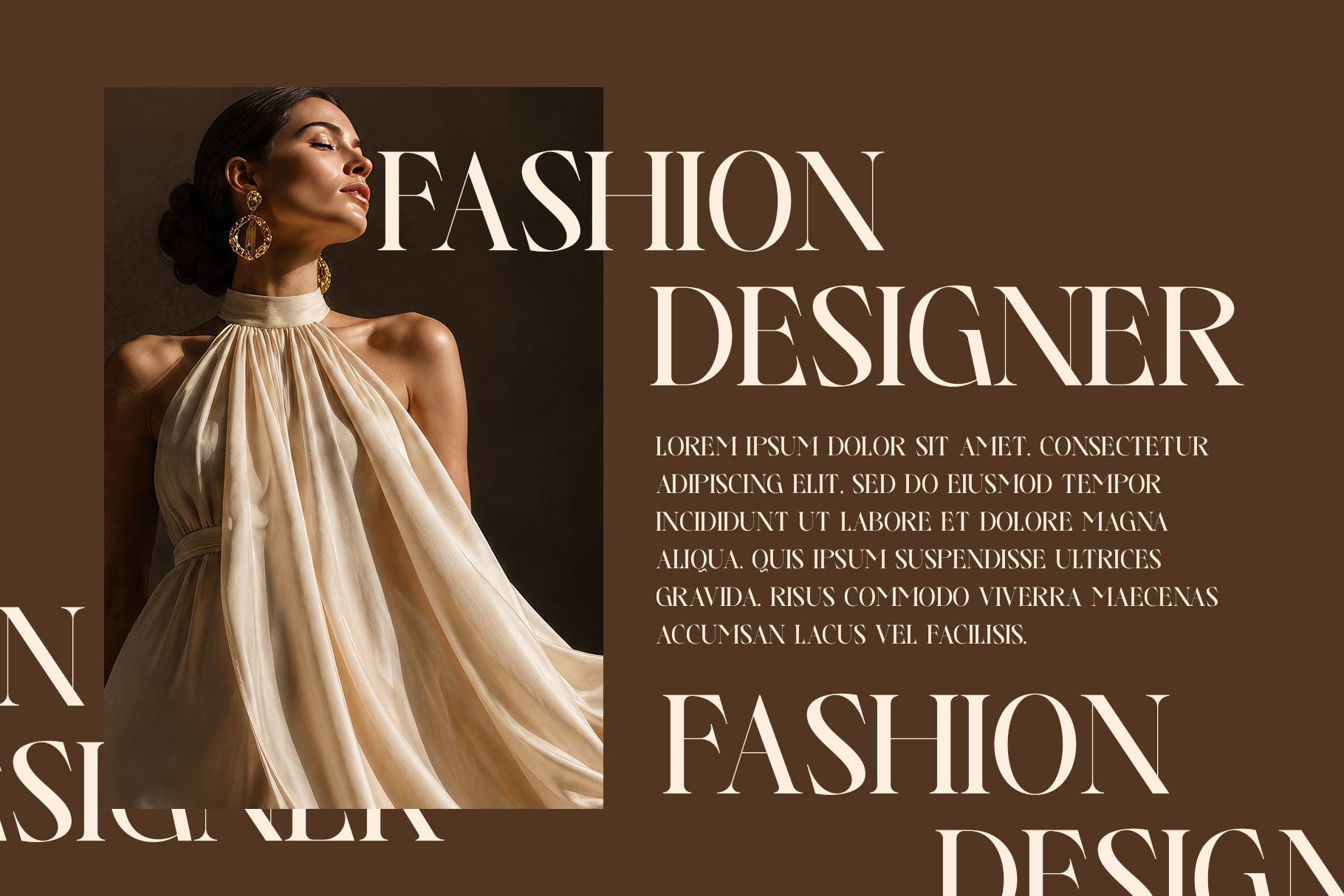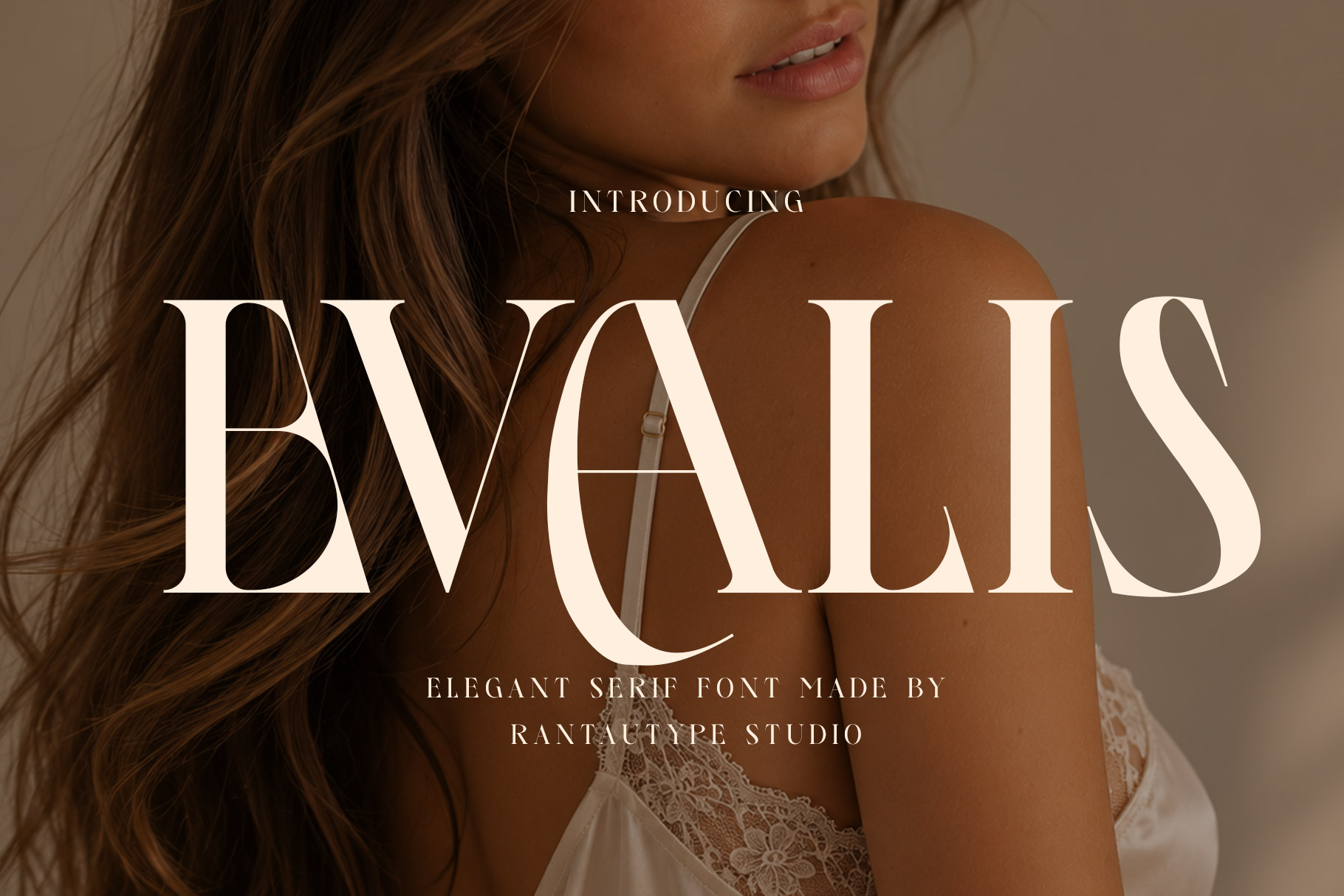
Evalis is an elegant high-contrast serif typeface that celebrates timeless sophistication through refined proportions and artistic letter construction. Inspired by the graceful aesthetics of luxury fashion, premium editorial design, and contemporary branding, this typeface blends classic serif traditions with bold modern expression.
Evalis a perfectly choice for any creative endeavor, creating, modern, lifestyle design such as logotype, title, cover, branding, invitations, wedding designs, display and magazine, social media posts, advertisements, printed quotes, product packaging, corporate brand, product designs, labels, photography, watermarks, special events and any other project with elegant touch.
Evalis Elegant Serif Font